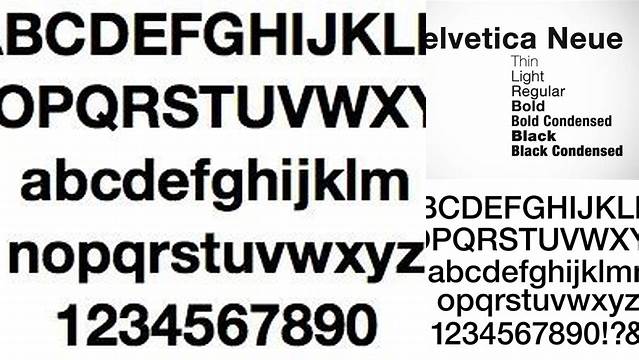
Hey guys! Are you on the hunt for the perfect font to elevate your design projects? Look no further! In this article, we’re diving deep into the world of Helvetica Neue Bold, a typeface that's renowned for its clarity, simplicity, and timeless appeal. We’ll explore what makes this font so special, where you can find it for free (or at least, the best alternatives), and how to use it effectively in your designs. Let’s get started!
What Makes Helvetica Neue Bold So Special?
Helvetica Neue Bold is more than just a font; it's a design icon. Originally designed by Max Miedinger in 1957, it’s a neo-grotesque typeface that has become a staple in the design world. Its clean lines and neutral appearance make it incredibly versatile, suitable for everything from corporate branding to editorial design. One of the key reasons for its widespread adoption is its legibility. The uniform strokes and generous spacing ensure that it remains readable even at small sizes. This is crucial for body text, signage, and UI design. Furthermore, its bold variant adds emphasis and presence, making it ideal for headlines, titles, and call-to-action buttons. The font's neutrality is a double-edged sword. On one hand, it doesn't impose a strong personality, allowing the content to take center stage. On the other hand, some designers find it lacking in character, preferring typefaces with more distinctive features. However, its adaptability means it pairs well with a wide range of other fonts, offering designers flexibility in their typographic choices. Helvetica Neue Bold is also technically sound. It has been meticulously digitized and refined over the years, ensuring consistent rendering across different platforms and devices. This is particularly important in the digital age, where designs need to look good on screens of all sizes. Its availability in multiple weights and styles, including light, regular, and condensed versions, further enhances its versatility. This allows designers to create typographic hierarchies and visual interest within a design. In summary, Helvetica Neue Bold's appeal lies in its simplicity, legibility, and versatility. It's a workhorse font that can be relied upon to deliver clear and effective communication in a wide range of contexts. Whether you're designing a website, a brochure, or a logo, Helvetica Neue Bold is a solid choice that will stand the test of time. So, its enduring popularity and widespread use are a testament to its timeless design and functional excellence. Next up, we’ll explore where to find this awesome font!
How to Use Helvetica Neue Bold Effectively
So, you've got your hands on Helvetica Neue Bold (or a fantastic alternative). Now, how do you use it effectively? This font is incredibly versatile, but like any design tool, it's important to use it thoughtfully. Here are some tips and best practices for getting the most out of Helvetica Neue Bold. First and foremost, consider the context. Where will this font be used? Is it for a website, a print brochure, or a logo? The answer will influence how you use the font. For headlines and titles, Helvetica Neue Bold can be a powerful choice. Its strong, clear letterforms command attention and create a sense of authority. Use it sparingly to highlight key messages and draw the reader's eye. Pair it with a lighter weight of Helvetica Neue or a complementary serif font for body text. When it comes to body text, legibility is paramount. While Helvetica Neue Bold can be used for short paragraphs or captions, it's generally best to stick to a lighter weight for longer passages. The bold variant can become tiring to read over extended periods. Pay attention to spacing and line height. Generous spacing between letters and lines will improve readability and prevent the text from feeling cramped. In UI design, Helvetica Neue Bold is a popular choice for buttons, labels, and navigation elements. Its clarity ensures that users can easily read and understand the text, even at small sizes. Use it to create a clear visual hierarchy and guide users through the interface. When using Helvetica Neue Bold in branding, consider the overall message and tone you want to convey. Its neutrality makes it a versatile choice for a wide range of brands, from corporate to creative. However, be mindful of the font's inherent simplicity. If you're looking to create a more unique or distinctive brand identity, you may need to pair it with other design elements, such as color, imagery, and typography. Experiment with different weights and styles to create visual interest and hierarchy. Helvetica Neue Bold is available in a variety of weights, from light to black, allowing you to create a nuanced typographic palette. Use different weights to emphasize key words and phrases, create visual contrast, and guide the reader's eye. Finally, don't be afraid to break the rules. While these tips provide a solid foundation, the best way to learn how to use Helvetica Neue Bold effectively is to experiment and explore different possibilities. Try pairing it with unexpected fonts, using it in unconventional ways, and pushing the boundaries of your design. So, with these tips in mind, go forth and create amazing designs with Helvetica Neue Bold!
Alright, let's talk about some common pitfalls to sidestep when using Helvetica Neue Bold. Even though it's a super versatile font, it's easy to make mistakes that can undermine your design. Here’s what to watch out for. First off, avoid overusing it. Just because it looks good doesn't mean you should plaster it everywhere. Too much bold text can be overwhelming and make your design feel cluttered. Use it strategically to highlight key elements, not as a default for everything. Another common mistake is poor pairing. While Helvetica Neue Bold plays well with others, some fonts just don't jive with its minimalist vibe. Avoid pairing it with overly ornate or decorative fonts that clash with its simplicity. Stick to clean, legible fonts that complement its style. Kerning issues can also be a problem. Kerning is the spacing between individual letters, and improper kerning can make your text look wonky. Pay close attention to the kerning, especially in headlines and logos, to ensure that the letters are evenly spaced and visually balanced. Line height and spacing are crucial for readability. Cramped text is hard to read, so make sure to give your lines some breathing room. Adjust the line height and letter spacing to create a comfortable reading experience. Don't neglect contrast. If your text blends into the background, it's not doing its job. Ensure that there's sufficient contrast between the text and the background to make it easily readable. This is especially important for users with visual impairments. Be careful with scaling. Stretching or compressing Helvetica Neue Bold can distort its proportions and make it look unprofessional. Always scale the font proportionally to maintain its intended appearance. Avoid using it for long blocks of text. While Helvetica Neue Bold is great for headlines and short paragraphs, it's not ideal for long-form content. The bold weight can be tiring to read over extended periods, so stick to a lighter weight for body text. Don't ignore licensing issues. Using a font without a proper license is a legal no-no. Make sure you have the necessary license before using Helvetica Neue Bold in your projects, or opt for a free alternative. Finally, don't be afraid to experiment, but always prioritize legibility and clarity. The goal is to communicate effectively, so make sure your font choices support that goal. So, by avoiding these common mistakes, you can use Helvetica Neue Bold to its full potential and create stunning designs that are both visually appealing and easy to read!
So, there you have it! A comprehensive guide to Helvetica Neue Bold, its alternatives, and how to use it effectively. This font is a timeless classic that can elevate your designs, but it's essential to use it thoughtfully and avoid common mistakes. Whether you opt for the original or a free alternative, remember to prioritize legibility, contrast, and spacing. With a little practice, you can master the art of typography and create stunning designs that stand out from the crowd. Happy designing, guys!